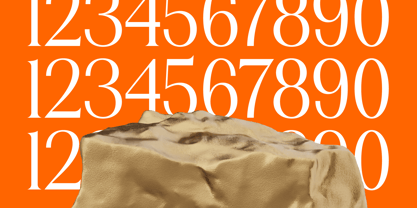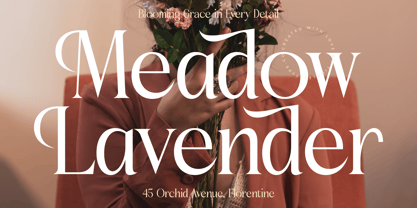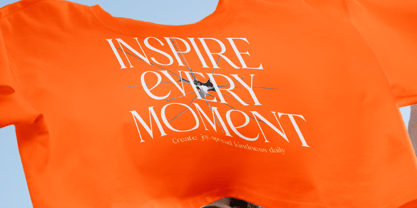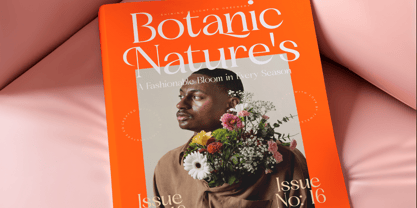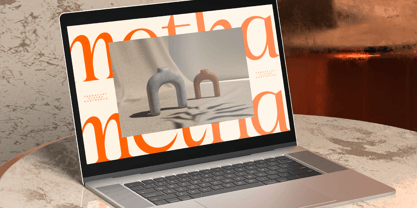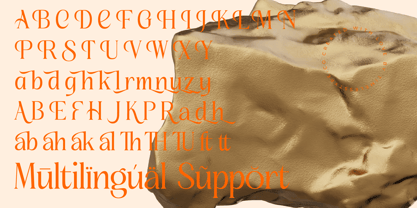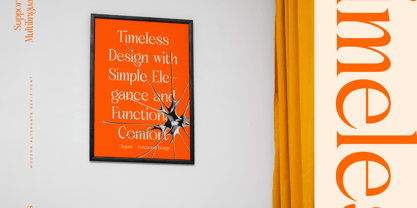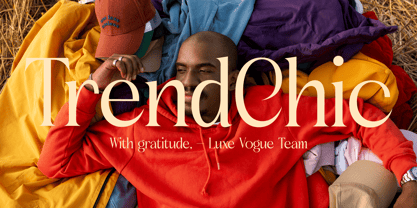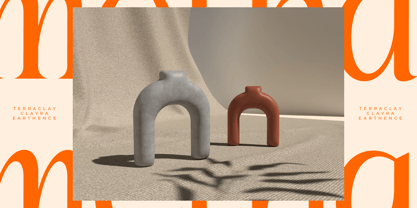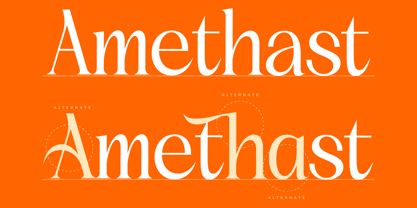
Amethast Stones
The Amethast Stones Font Family was designed by Heru Utama Putra and published by Timelesstype Studio. Amethast Stones contains 2 styles and family package options. More about this family
Amethast Stones - Modern Alternate Serif Font , from Timelesstype, Suitable for any projects such as: logos, branding projects, homeware designs, product packaging, mugs, quotes, posters, shopping bags, t-shirts, book covers, name card, invitation cards, greeting cards, label, photography, watermark, special events, and all your other luxury and beautiful projects that need a Luxury Serif taste.